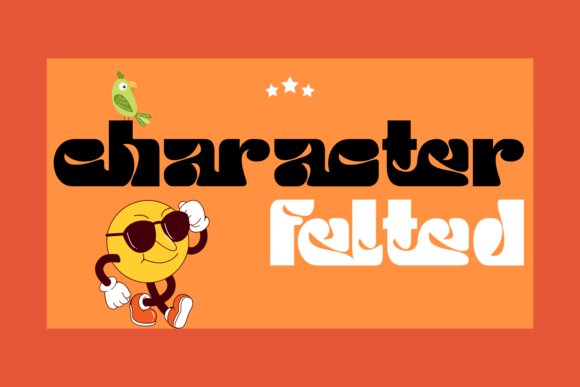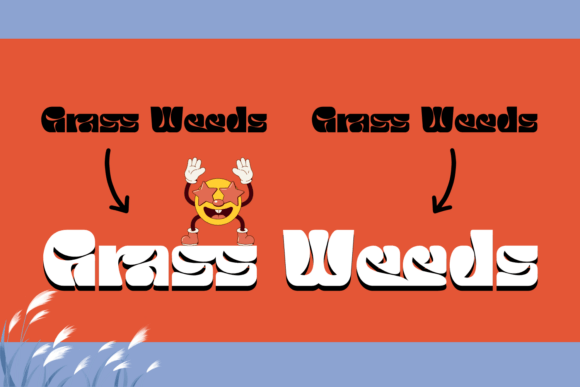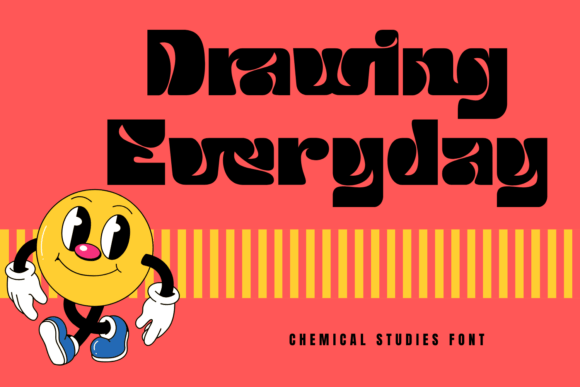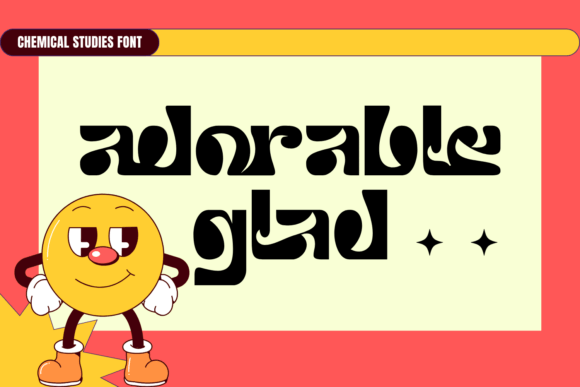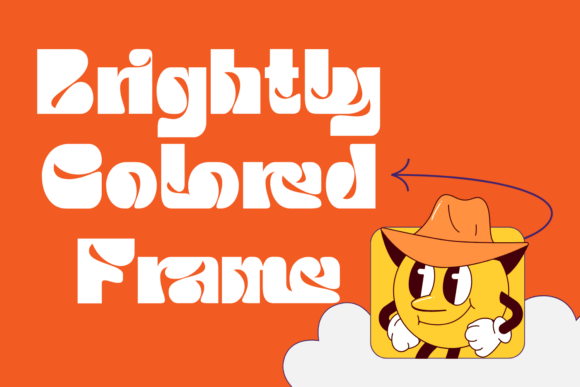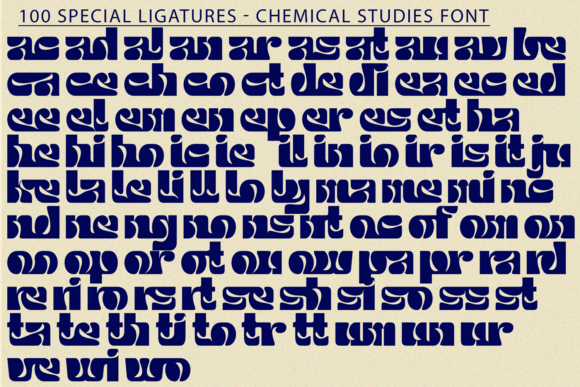
Introducing Chemical Studies Font: A Modern and Playful Typeface
In the world of typography, a new font has emerged that is sure to capture the attention of designers and crafters alike. Chemical Studies Font is a reverse contrast typeface that boasts a modern and clean look, making it perfect for a wide range of applications. With its bold display and rounded style, this font exudes a fun and playful impression that is sure to elevate any design project.
Unique Features of Chemical Studies Font
One of the standout features of Chemical Studies Font is its inktrap design, which adds a touch of uniqueness to both the upper and lower case letters. This distinctive feature sets it apart from other fonts and makes it a great choice for designers looking to add a bit of personality to their work. The font is also elegant and sophisticated, making it suitable for use in corporate identities, websites, publications, titles, books, magazines, business cards, logos, product labels, packaging, and any kind of advertising purpose.
Technical Specifications
Chemical Studies Font was built with OpenType features, which provide a high level of flexibility and customization. The font includes 100 ligatures, alternate characters, numbers, punctuation, and supports other languages, making it a versatile choice for designers working on international projects. With its wide range of features, Chemical Studies Font is sure to meet the needs of even the most demanding design projects.
Design Applications
Chemical Studies Font is a highly versatile typeface that can be used in a wide range of design applications. Its bold and playful style makes it perfect for use in:
- Corporate identities: Create a lasting impression with a unique and memorable logo or brand identity.
- Websites: Add a touch of personality to your website with a font that is both modern and clean.
- Publications: Use Chemical Studies Font to add a bit of flair to your publications, such as books, magazines, and newspapers.
- Titles and headings: Make a statement with bold and eye-catching titles and headings.
- Business cards: Stand out from the crowd with a unique and memorable business card design.
- Logos and branding: Create a lasting impression with a custom logo or brand identity.
- Product labels and packaging: Add a touch of personality to your product labels and packaging.
- Advertising: Use Chemical Studies Font to create eye-catching and effective advertising campaigns.
Why Choose Chemical Studies Font?
So why choose Chemical Studies Font for your next design project? Here are just a few reasons:
- Unique and distinctive: Chemical Studies Font is a one-of-a-kind typeface that is sure to set your design apart from the crowd.
- Highly versatile: With its wide range of features and applications, Chemical Studies Font is a font that can be used in a variety of design projects.
- Modern and clean: The font’s modern and clean design makes it perfect for use in a wide range of applications, from corporate identities to advertising campaigns.
- Easy to read: Despite its bold and playful style, Chemical Studies Font is easy to read and understand, making it perfect for use in body text and other applications where readability is key.
In conclusion, Chemical Studies Font is a highly versatile and unique typeface that is sure to capture the attention of designers and crafters alike. With its modern and clean design, bold display, and playful impression, this font is perfect for use in a wide range of applications. Whether you’re working on a corporate identity, website, publication, or advertising campaign, Chemical Studies Font is a great choice. So why not give it a try and see the difference it can make in your next design project?